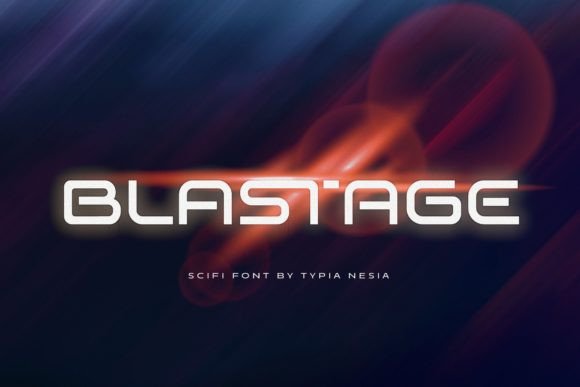
Blastage Font: Unleash Your Wild West Vision with a Dash of Futurism
In a world where creativity reigns supreme, the Blastage Font emerges as a beacon of inspiration, ready to ignite your imagination and transform your designs into captivating masterpieces. This extraordinary font, hailing from the esteemed Typia Nesia, masterfully blends the rugged charm of the Wild West with a touch of futuristic flair.
Picture this: vast, sun-baked landscapes, tumbleweeds dancing in the wind, and the indomitable spirit of cowboys and pioneers. Blastage Font captures this essence perfectly, allowing you to craft designs that evoke the nostalgia of the Old West while embracing the boundless possibilities of the future.
Crafted with meticulous precision, Blastage Font boasts a minimalist style and unique letterforms that demand attention. Each stroke and curve has been carefully designed to exude a sense of ruggedness and determination, perfectly suited for logos, labels, posters, and packaging that demand a bold and memorable presence.
But Blastage Font's versatility doesn't stop there. Its futuristic undertones make it an ideal choice for books, movies, presentations, and games that seek to transport audiences to realms of science fiction and technological wonders. From sleek gadgets and sleek interfaces to otherworldly landscapes and epic space adventures, Blastage Font brings your creative visions to life with unparalleled impact.
And to elevate your design experience even further, Blastage Font is PUA encoded, granting you effortless access to a treasure trove of glyphs and ligatures. Unleash your creativity and explore endless possibilities, crafting designs that resonate with individuality and timeless appeal.